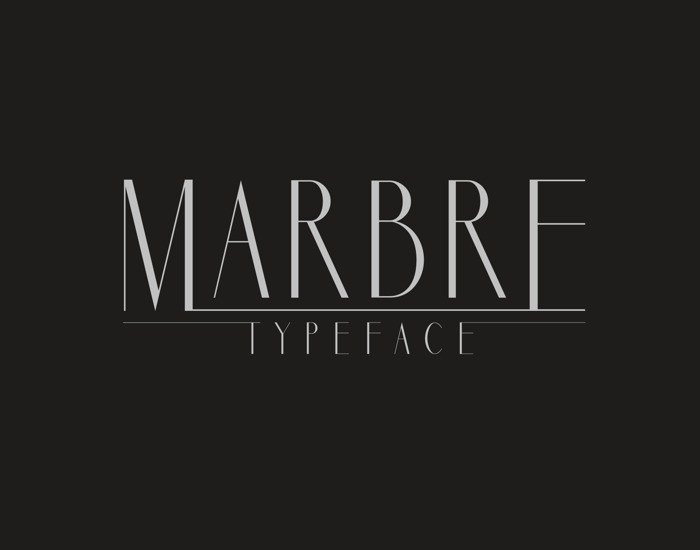
Marbre Sans Font
Marbre Font is an elegant typeface of contrast.
It offers a modern take of the old didoe genre, confidently playing with extremes of thick strokes and whisper thin curves, but removing the serifs, planting it firmly in modern day design.
Its a careful collaboration between beauty and function.